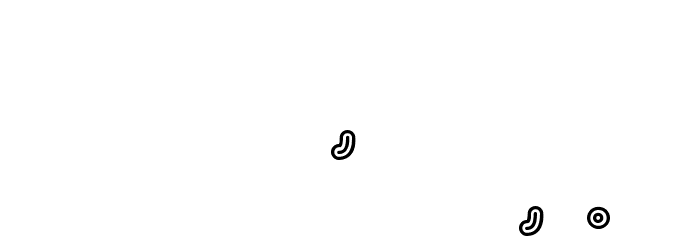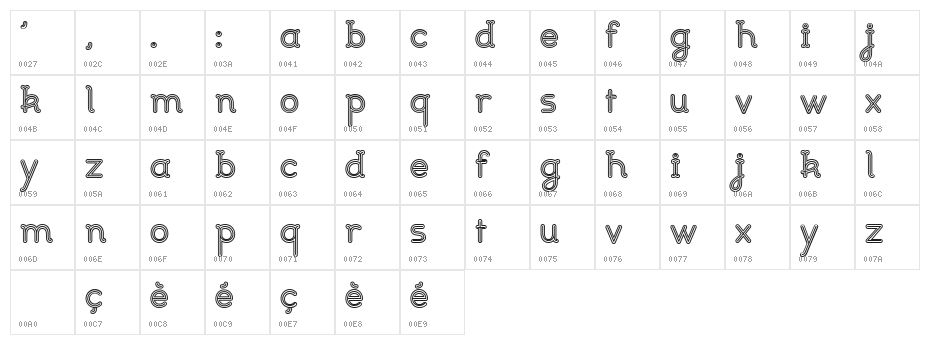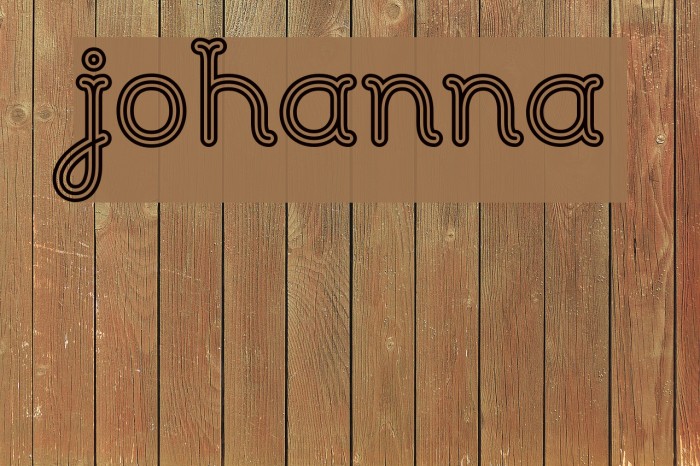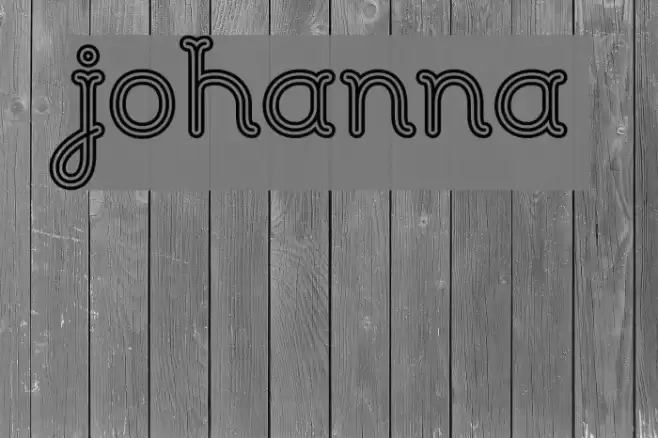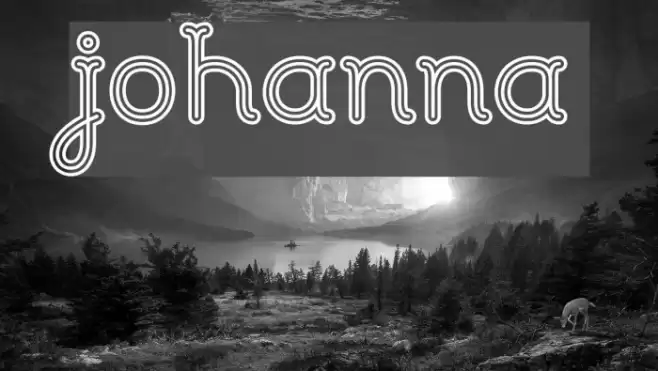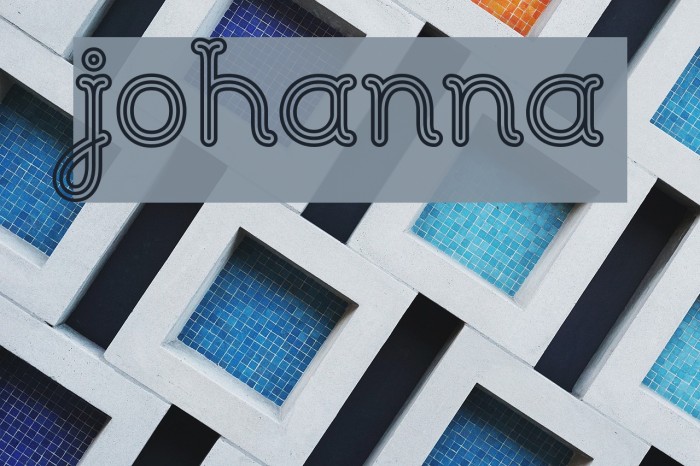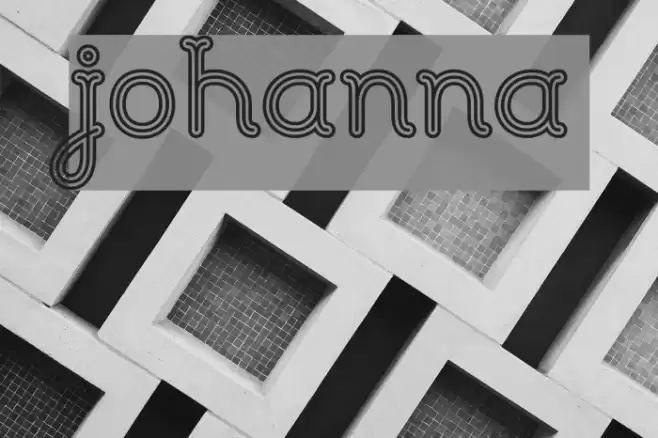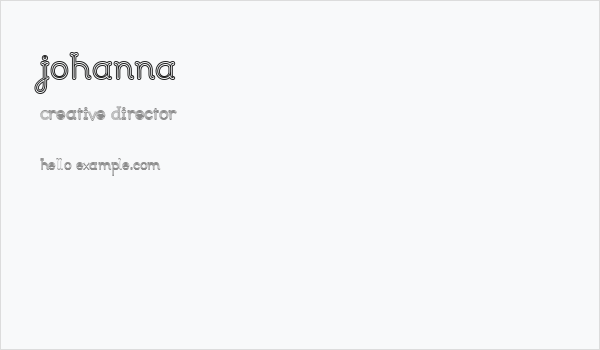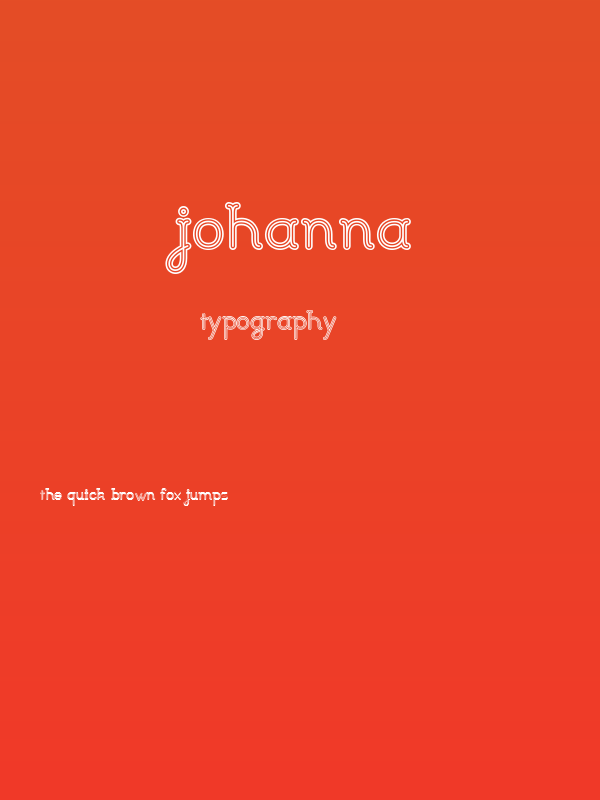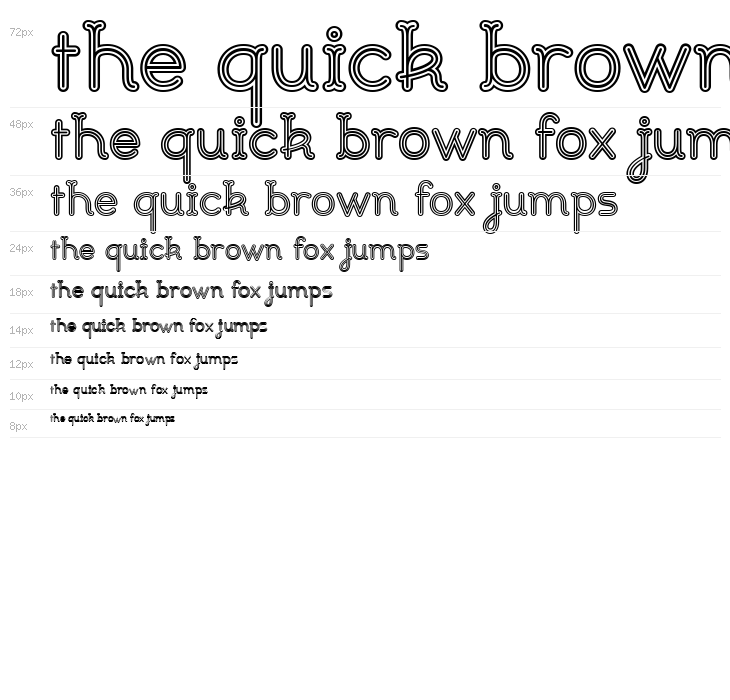
johanna Font
johanna Description
This font features a playful and decorative style with a double-line outline that creates a hollow effect. The characters are rounded and exhibit a consistent thickness throughout, giving them a uniform appearance. The lowercase letters have a whimsical touch, particularly noticeable in the 'g' and 'j', which have a looped descender. The overall design is clean and legible, making it suitable for creative projects. The absence of uppercase letters and numbers suggests a focus on artistic expression rather than formal text presentation.
| Overall Style | Playful, Decorative |
| Proposed Projects | Ideal for children's book covers, playful branding, greeting cards, and creative posters. |